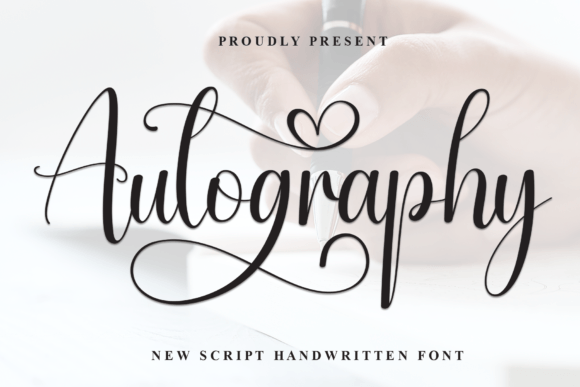
The Autography Font: Elevating Designs with Elegance and Whimsy
I’ll never forget the design project that led me to discover the Autography font. I was working on a luxury branding campaign for a high-end jewelry client, and I was struggling to find the perfect font that exuded both sophistication and playfulness. The client wanted a bespoke, artisanal feel that would set their brand apart from the competition. After hours of scouring font libraries and testing various combinations, I stumbled upon Autography – and it was love at first sight! 💫
A Personal Review of Autography
As a designer, I’m always on the lookout for fonts that can elevate my projects and bring a unique touch to my designs. Autography has quickly become one of my go-to fonts, and here’s why:
• ✨ Elegant and refined letterforms that add a touch of sophistication to any project
• ✅ Fluid, organic strokes that give it a handcrafted, artisanal feel
• ✨ Perfect for upscale packaging, branding, and editorial designs where a high-end look is desired
• ✅ Works beautifully in both digital and print formats, making it versatile for various applications
Of course, no font is perfect, and Autography has a few quirks to be aware of:
• ⚠️ Some characters may require manual kerning to achieve optimal spacing and readability
• 🤔 May not be the best choice for body text due to its elegant, yet slightly ornate nature
The Story Behind Autography
Autography was designed by a team of typographers who sought to create a modern, handwritten font that would bring a touch of elegance and whimsy to designs. Inspired by traditional calligraphy and hand-lettering techniques, Autography combines fluid, organic strokes with refined letterforms to create a truly unique font.
What is Autography best suited for? Autography is ideal for upscale packaging, branding, and editorial designs where a high-end look is desired.
Is Autography suitable for body text? While Autography is elegant and refined, it may not be the best choice for body text due to its ornate nature. It’s better suited for headlines, titles, and short paragraphs.
Does Autography support OpenType features? Yes, Autography supports OpenType features like ligatures, stylistic alternates, and glyphs, making it versatile and customizable.